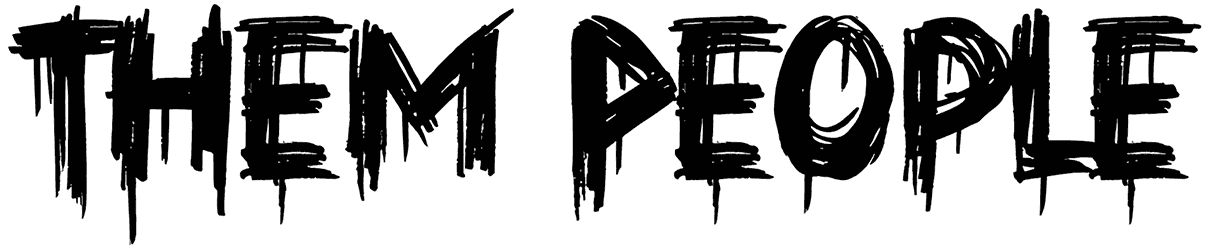
Them People Font
Get ready to experience a lot of fear with Them People, which is a horror font featuring a rough, scribbled, and dripping display. Meanwhile, it sends out a feeling of threat, panic, and satanism from itself, making your blood run cold. Use this creative font for book covers, social media, movie titles, Halloween party invitations, and video games.